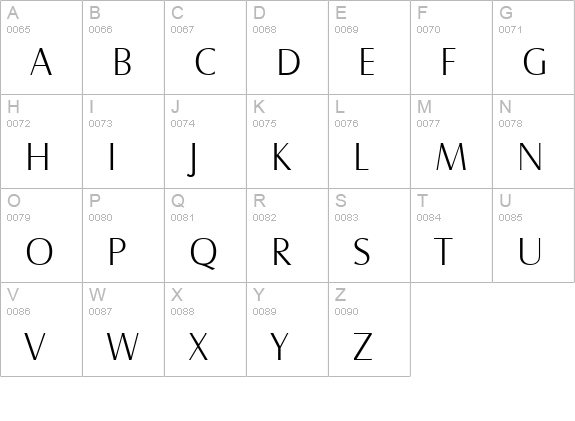
Canossa-Light-Regular Font Details
Canossa-Light-Regular is a refined, elegant variant in the Canossa typeface family \xE2\x80\x94 well suited to elegant body text, refined sub-headings, and luxury branding.
Canossa-Light-Regular is a modern and elegant font that exudes sophistication and style. With its clean lines and sleek design, this font is perfect for a wide range of design projects, from branding to editorial design. The light weight of the font gives it a delicate and airy feel, making it ideal for adding a touch of refinement to your creations. What makes Canossa-Light-Regular even more appealing is that it is available for free download at FontsMarket.com. This means that you can easily access this beautiful font and incorporate it into your projects without any hassle. Whether you are a professional designer or just starting out, Canossa-Light-Regular is a versatile and high-quality font that is sure to elevate your work to the next level.